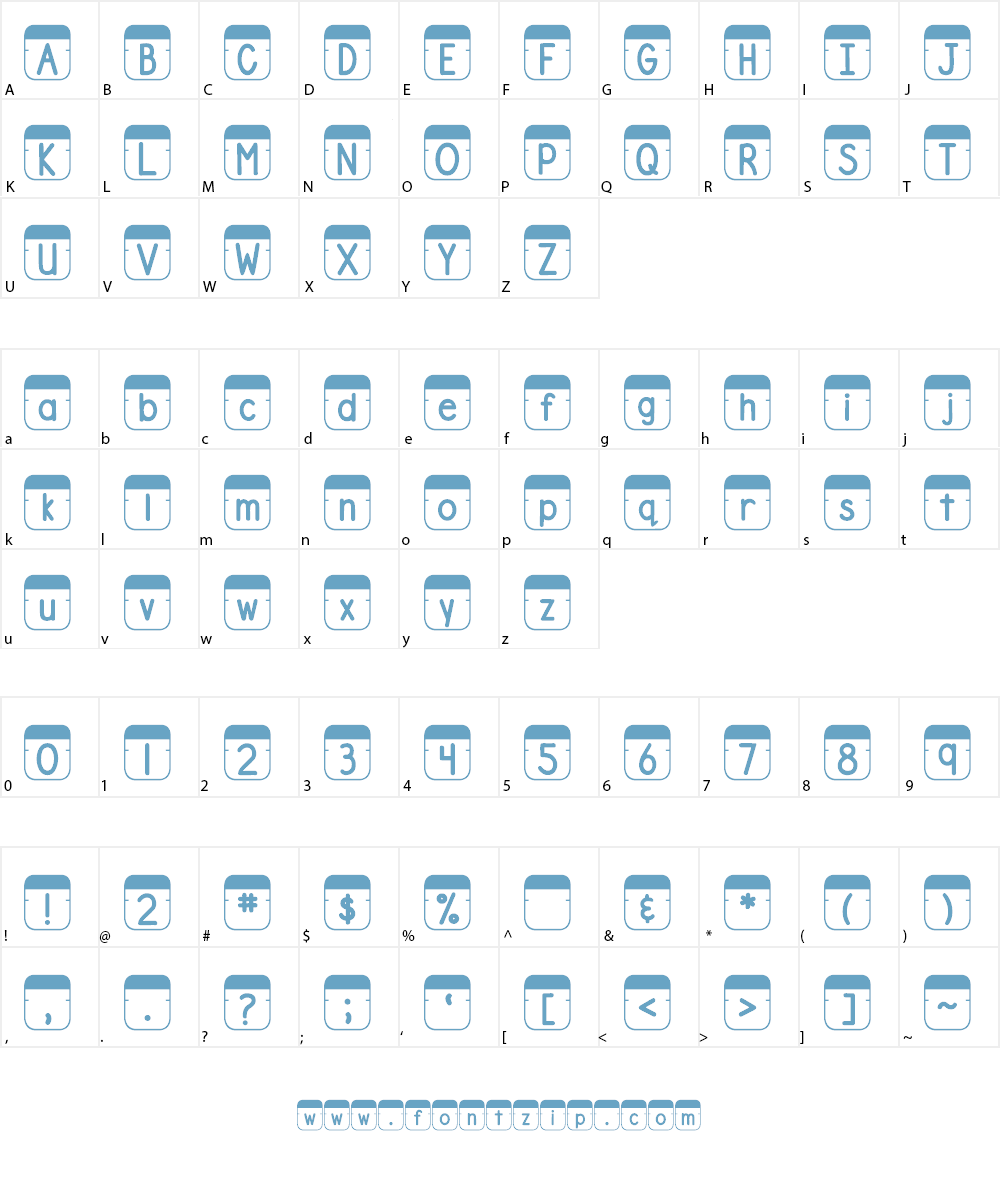
DJB File Folder Tabs is a font that lets you create a look of a file folder label with individual letters for product covers, book titles, games, tshirts and more!